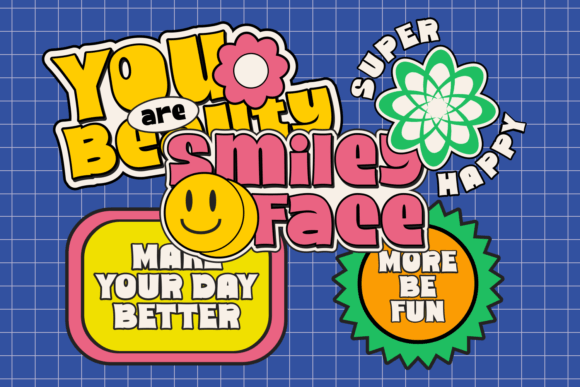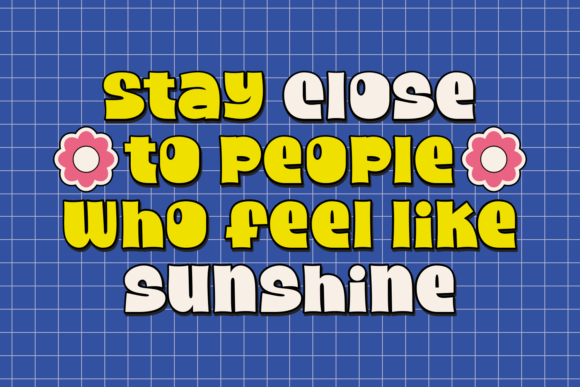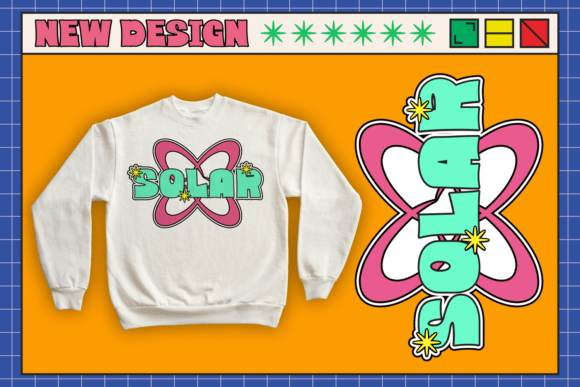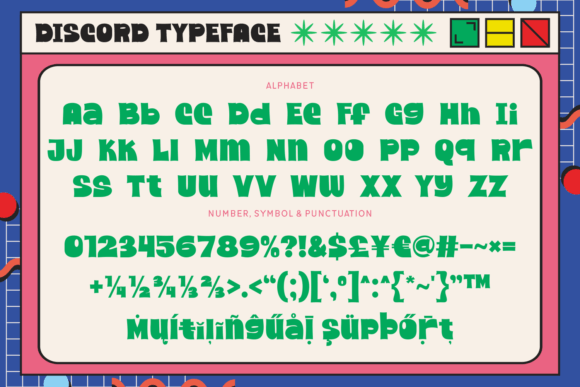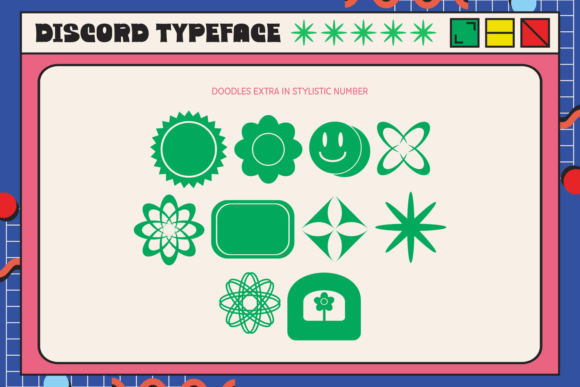
Introducing Discord Font: The Ultimate Display Font for Bold Designs
Are you tired of using the same old fonts in your design projects? Look no further than Discord Font, a stunning vintage display font that exudes boldness and charm. With its attractive curves and unique character shapes, this font is sure to make a statement in any design project. In this article, we’ll explore the features and benefits of Discord Font, and why it’s the perfect choice for designers and crafters looking to add a touch of elegance and sophistication to their work.
A Font that Stands Out from the Crowd
Discord Font is a true standout in the world of typography. Its bold and charming design makes it perfect for logos, headlines, and other attention-grabbing elements. The font’s attractive curves and unique character shapes give it a distinctive look that’s sure to grab attention. Whether you’re working on a branding project, a website design, or a craft project, Discord Font is the perfect choice for adding a touch of personality and style.
Discord Font is a versatile font that’s perfect for a wide range of design projects. Whether you’re a professional designer or a crafter, this font is a great choice for adding a touch of elegance and sophistication to your work. Here are just a few ways you can use Discord Font:
- Logos: Use Discord Font to create a bold and memorable logo for your business or brand.
- Headlines: Add a touch of personality and style to your headlines with Discord Font.
- Craft Projects: Use Discord Font to add a personal touch to your craft projects, such as handmade cards, invitations, and scrapbooking pages.
- Web Design: Add a touch of elegance and sophistication to your website design with Discord Font.
Why Choose Discord Font?
So why choose Discord Font over other display fonts on the market? Here are just a few reasons:
- Unique Design: Discord Font has a unique and distinctive design that’s sure to grab attention.
- Versatile: Discord Font is perfect for a wide range of design projects, from logos and headlines to craft projects and web design.
- Elegant and Sophisticated: Discord Font adds a touch of elegance and sophistication to any design project.
In conclusion, Discord Font is a stunning vintage display font that’s perfect for designers and crafters looking to add a touch of elegance and sophistication to their work. With its attractive curves and unique character shapes, this font is sure to make a statement in any design project. And with PUA encoding, you can easily access all glyphs and swashes. Whether you’re working on a branding project, a website design, or a craft project, Discord Font is the perfect choice. So why wait? Try Discord Font today and see the difference it can make in your design projects!